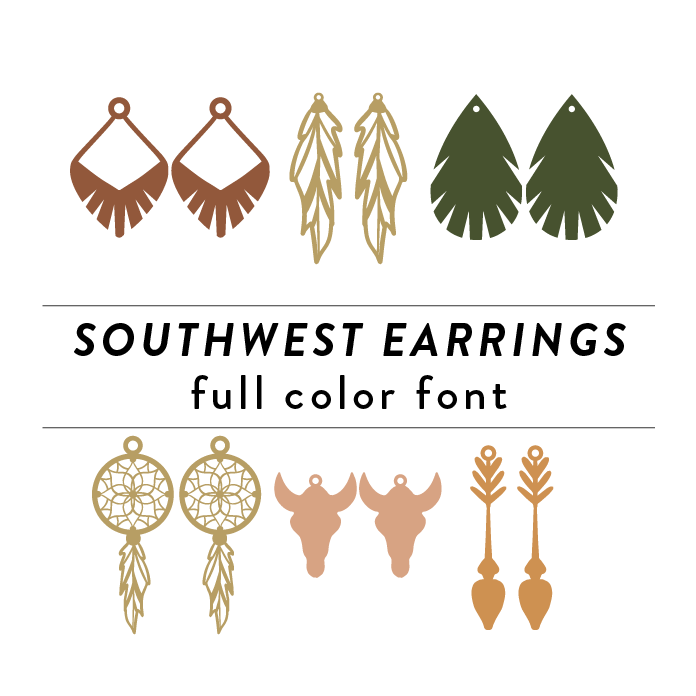
Southwest Earrings Full Color Font is a vibrant and intricate font design inspired by Southwest motifs. Perfect for adding a stylish and fashionable touch to any project related to fashion or decor. This font is a OTF craft font that will appear in color only when used with the silhouette software.